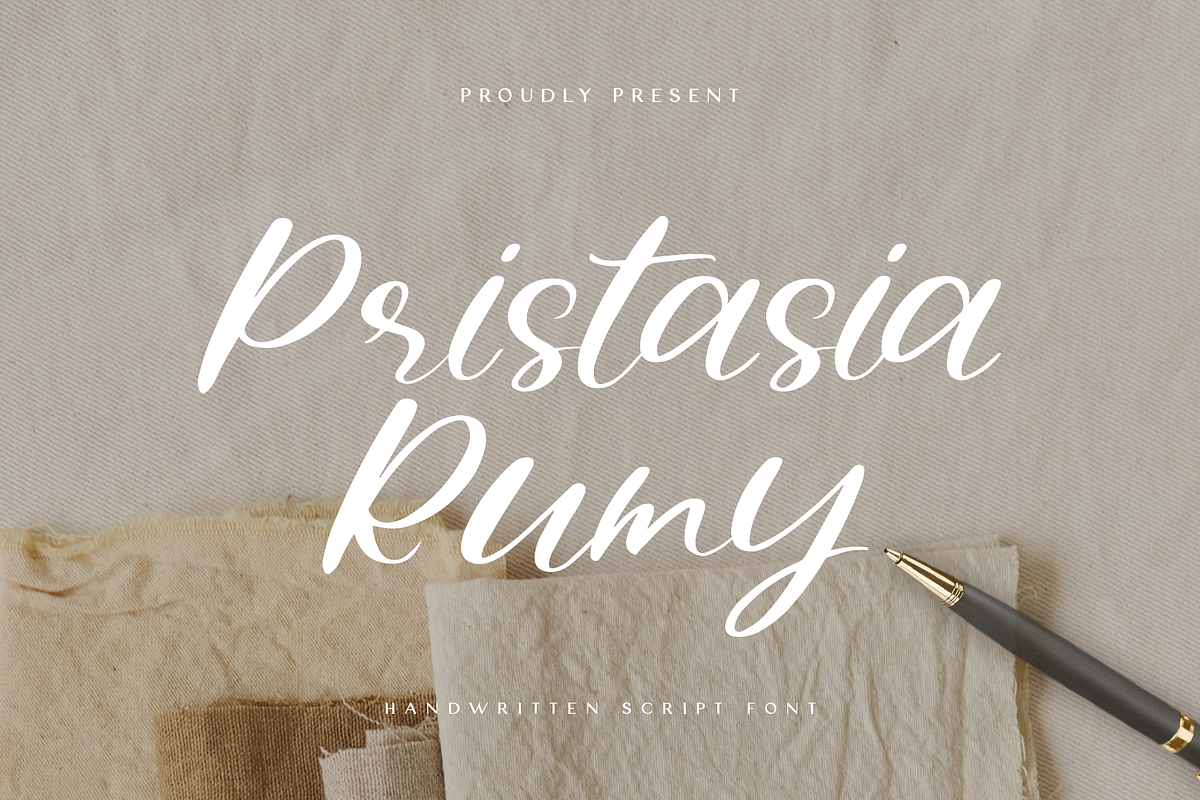
Pristasia Rumy Script Font Free Download is an elegant and romantic handwritten typeface that captures the beauty of modern calligraphy. With its flowing letterforms, stylish swashes, and artistic flair, this script font is perfect for wedding stationery, logo designs, branding projects, social media content, and other designs that require a personal and graceful touch.
Crafted with attention to detail, Pristasia Rumy Script Font Free Download offers a range of alternates and ligatures to help you create truly custom typography. Its soft, smooth curves make it ideal for conveying emotion and sophistication, especially in projects that emphasize femininity, elegance, or creativity.